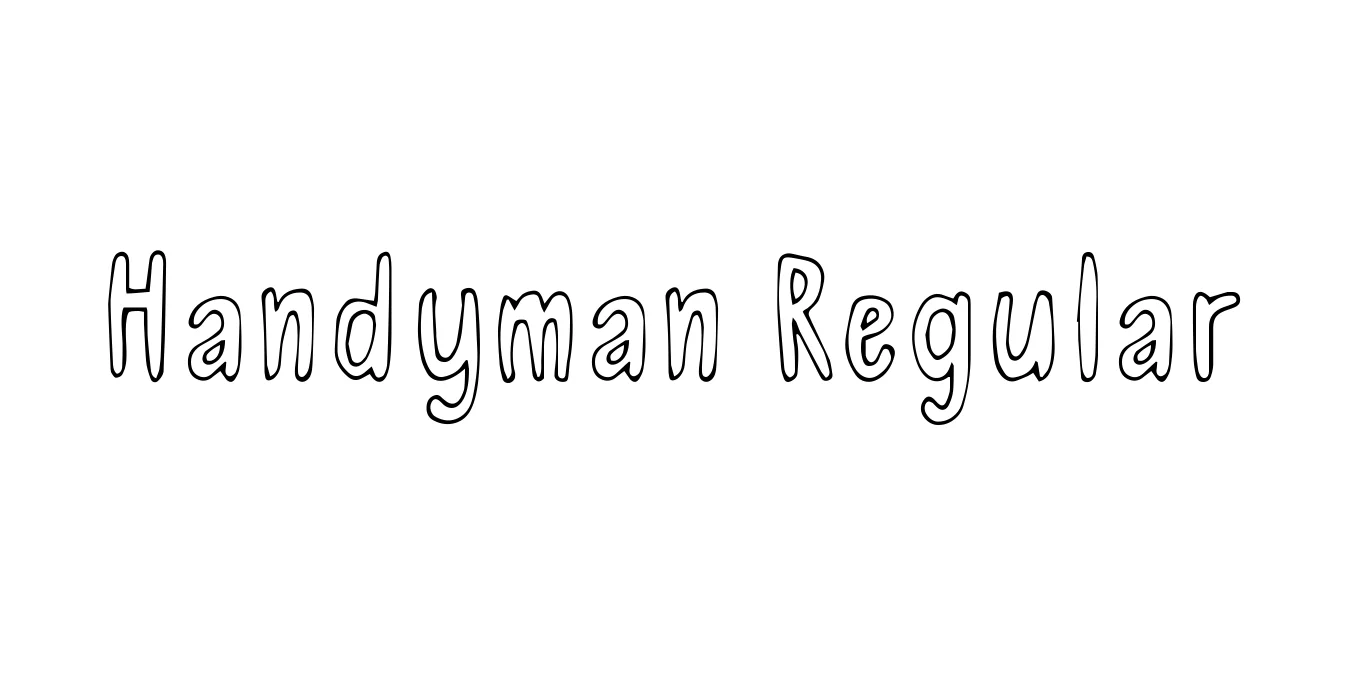
Handyman Regular
Designed by Greg Medina
| Font Name | Handyman |
| Category | Script / Display |
| Designer | Greg Medina |
| Similar Fonts | Sign Painter, Brush Script, Kaufmann, Lobster |
Handyman Regular is a versatile, hand-crafted typeface designed by Greg Medina of Hypefonts. Drawing inspiration from classic sign-painting techniques and mid-century DIY lettering, this font captures a rugged yet approachable aesthetic. Its bold strokes and slightly irregular edges give it an authentic, human touch that stands out in a sea of sterile digital designs, making it a favorite for those seeking a vintage or artisanal feel.
The font is particularly effective for projects requiring a sense of craftsmanship and manual labor. Whether used for workshop branding, vintage-style packaging, or hardware store signage, Handyman Regular delivers a strong visual impact. Its robust character set ensures readability while maintaining a playful, informal vibe suitable for both high-impact print layouts and creative digital media campaigns.
Handyman Regular Best Uses
Perfect for creating rugged, craftsman-style brand identities and workshop logos.
Ideal for vintage-themed product labels, hardware boxes, and artisanal goods.
Great for bold, eye-catching headers and promotional graphics on social platforms.
Excellent for storefronts and signage requiring a traditional hand-painted look.